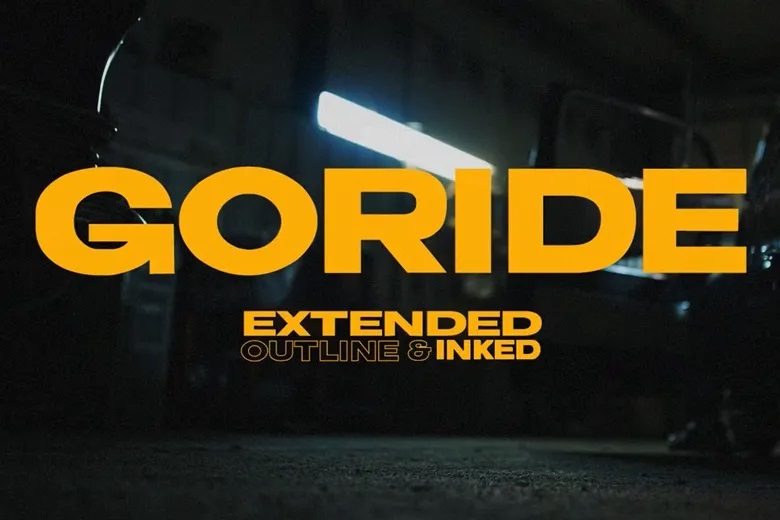
Goride Font
Goride is a contemporary flexible sans serif display typefaces to boost the visual appeal of video thumbs, poster, magazines and many others. It has clean lines and modern look, which allows it to grab attention while still being readable on different platforms and different sizes of the screens.
Perfect for creators who want a stylish typeface that can be functional at the same time, Goride is a perfect balance of boldness and clarity, making it the ideal typeface for titles, captions, and promotional content in the vibrant landscape of digital media.
Goride Display Font